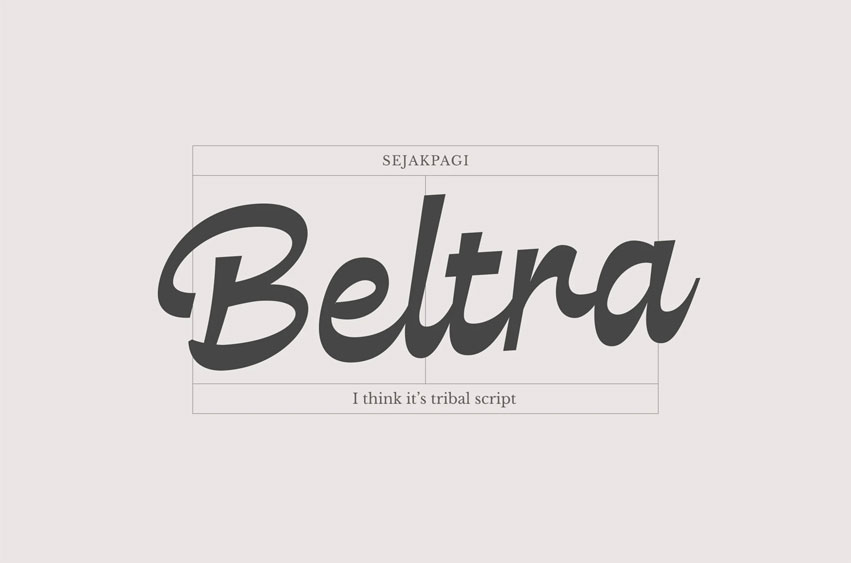
Beltra Font with a tribal style. It works exceptionally well as a logotype due to its unique character, yet remains versatile for various design needs.
Beltra also includes several letterforms that support multiple languages.